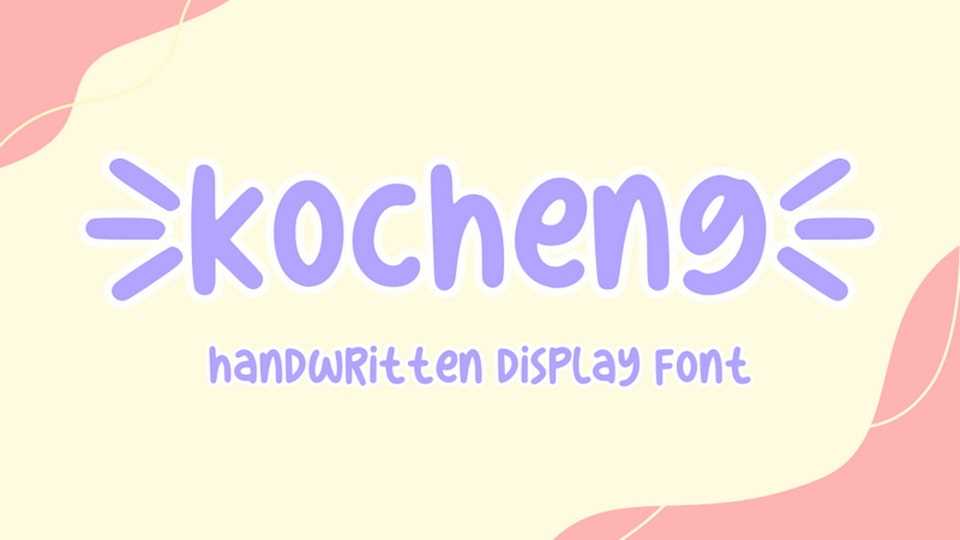
Download Kocheng font, a playful and quirky hand-drawn comic typeface that adds a dose of fun and spontaneity to your designs.
Designer: RaffaSyad Studio